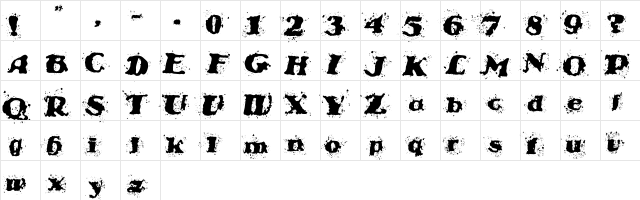
StableNo by veredgf
Design Context for StableNo Typeface
StableNo is a composed and adaptable typeface that performs quietly and consistently across a wide range of design contexts.